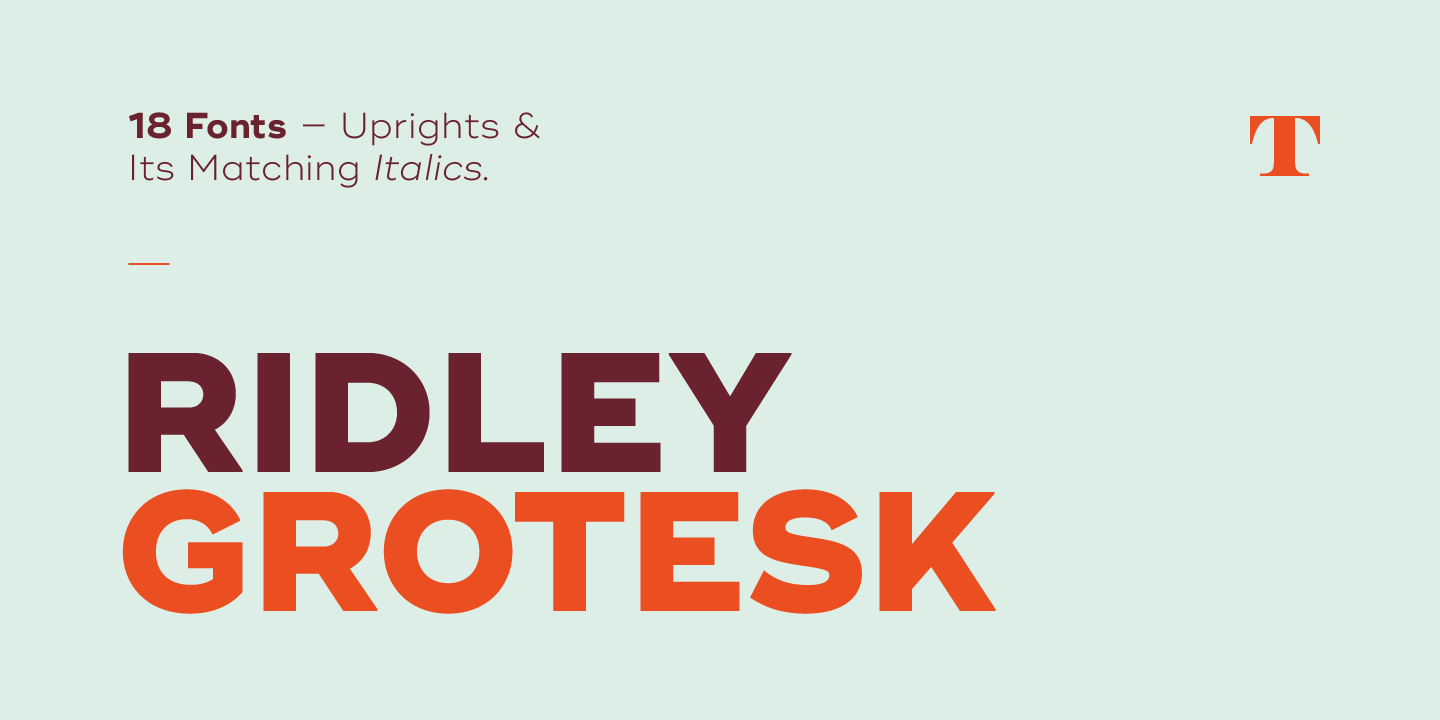
Ridley Grotesk Font is a sleek, modern, and highly versatile sans-serif typeface, perfectly crafted for contemporary design projects that demand a sharp and professional aesthetic. Imagine it providing the crisp, authoritative headlines for a cutting-edge technology brand's website, delivering exceptionally clear body text for an innovative digital magazine, or adding a sophisticated, minimalist touch to architectural presentations. Its clean lines and well-defined forms make it an excellent choice for corporate branding, mobile app interfaces, editorial layouts, and any application where clarity, precision, and a modern sensibility are paramount. It performs outstandingly across various sizes, ensuring excellent readability in both digital and print environments.
What makes Ridley Grotesk Font truly exciting is its balance of geometric structure with subtle humanist nuances, preventing it from feeling overly rigid or sterile. It embodies the essence of contemporary grotesques—functional, legible, and unobtrusive—yet it often carries a refined elegance that elevates its appearance. This careful design ensures that Ridley Grotesk Font can adapt seamlessly to diverse brand identities, from high-tech and minimalist to fashionable and artistic. Designers consistently praise its meticulous attention to detail, strong legibility even at small sizes, and its inherent versatility that allows it to excel in both display and text settings. It's not just a font; it's a precisely engineered typographic solution for modern communication.
The Ridley Grotesk Font family is typically extensive and well-structured, providing a comprehensive range of weights and styles to meet a broad spectrum of design requirements. You can generally expect to find a wide array of weights, from a delicate Thin or Hairline, perfect for subtle, elegant accents, to a robust Black or Ultra, ideal for impactful headlines and strong visual statements. Crucially, most Ridley Grotesk Font families also include corresponding Italic versions for each weight, significantly enhancing its flexibility for creating visual hierarchies and adding dynamic emphasis within your text. This extensive selection ensures remarkable creative control and allows you to achieve the perfect typographic tone for any project. Don't miss out on Ridley Grotesk Font Free Download for your next design endeavor!